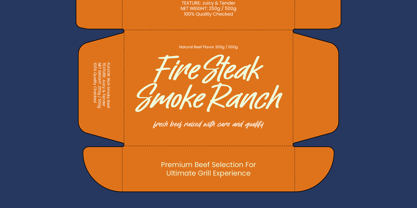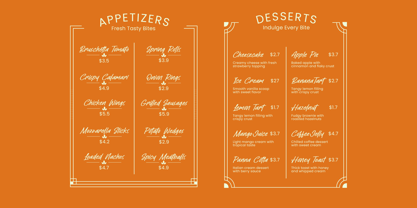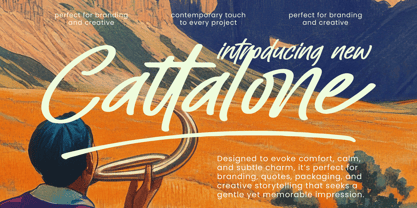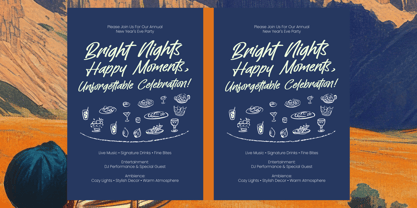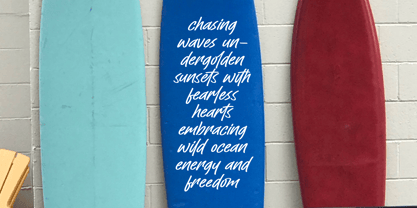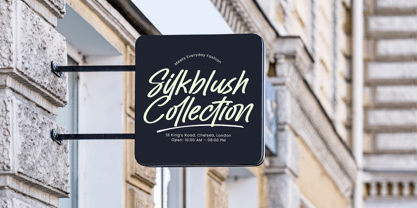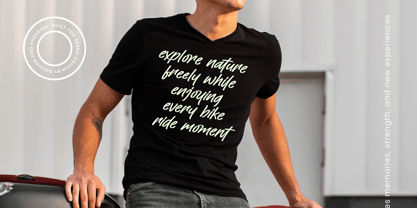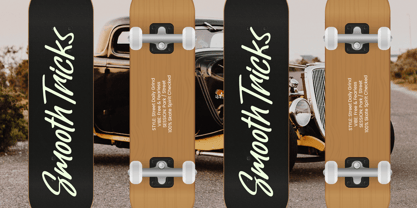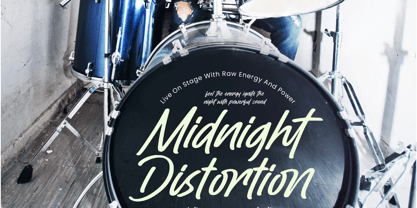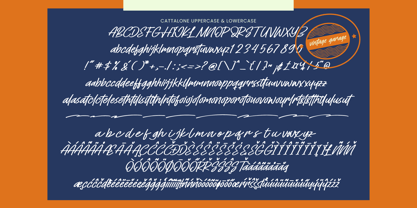
Cattalone
The Cattalone Font Family was designed by Heru Utama Putra and published by Letterena Studios. Cattalone contains 2 styles and family package options. More about this family
Cattalone-Modern Handwritten Font
Introducing Cattalone, a modern handwritten typeface designed to deliver a soft, expressive rhythm with a touch of elegance. The flowing strokes give the font a personal and organic feel, making each letter dance across the page with charm and warmth. Whether in its regular or italic form, Cattalone brings a fresh, inviting energy to any design, making it perfect for those looking to add character and personality to their projects.
With 63 ligatures and 35 alternates, this versatile typeface is ideal for branding, quotes, invitations, social media, packaging, and storytelling. Its warm, inviting tone creates a captivating and confident atmosphere, adding a touch of flair to creative works that demand attention and elegance.